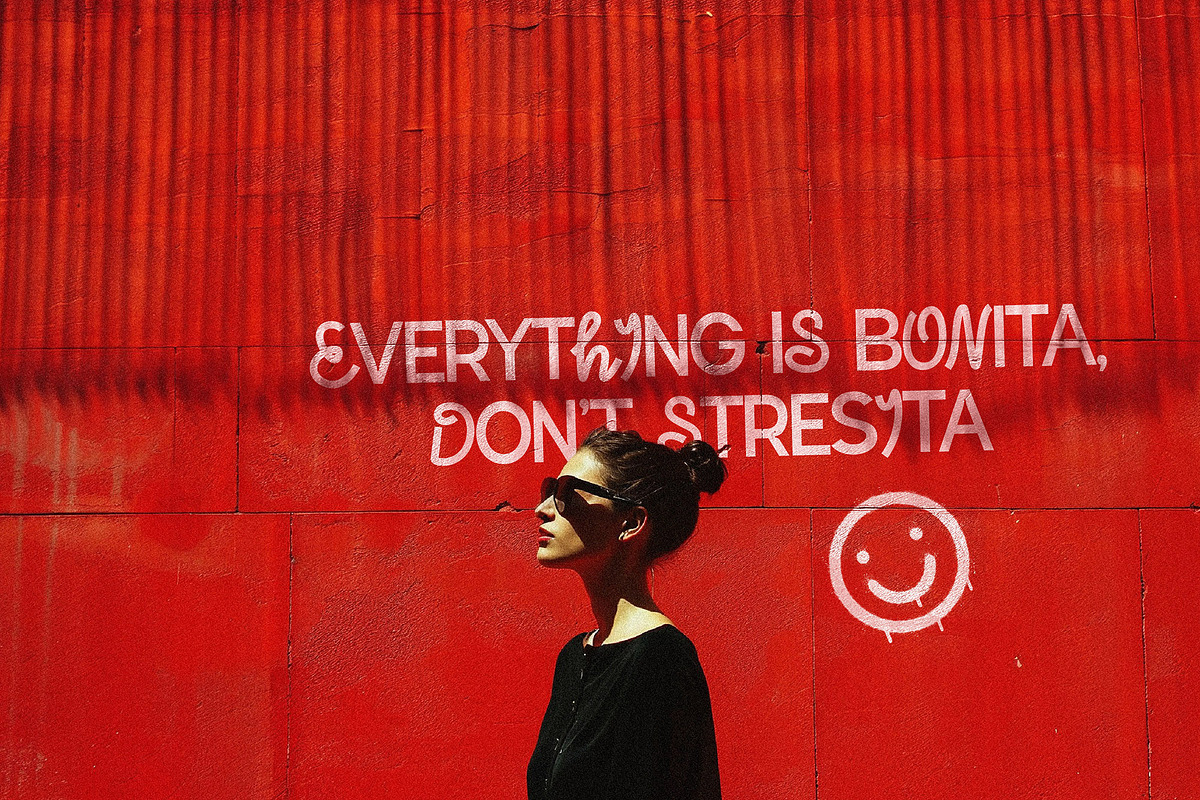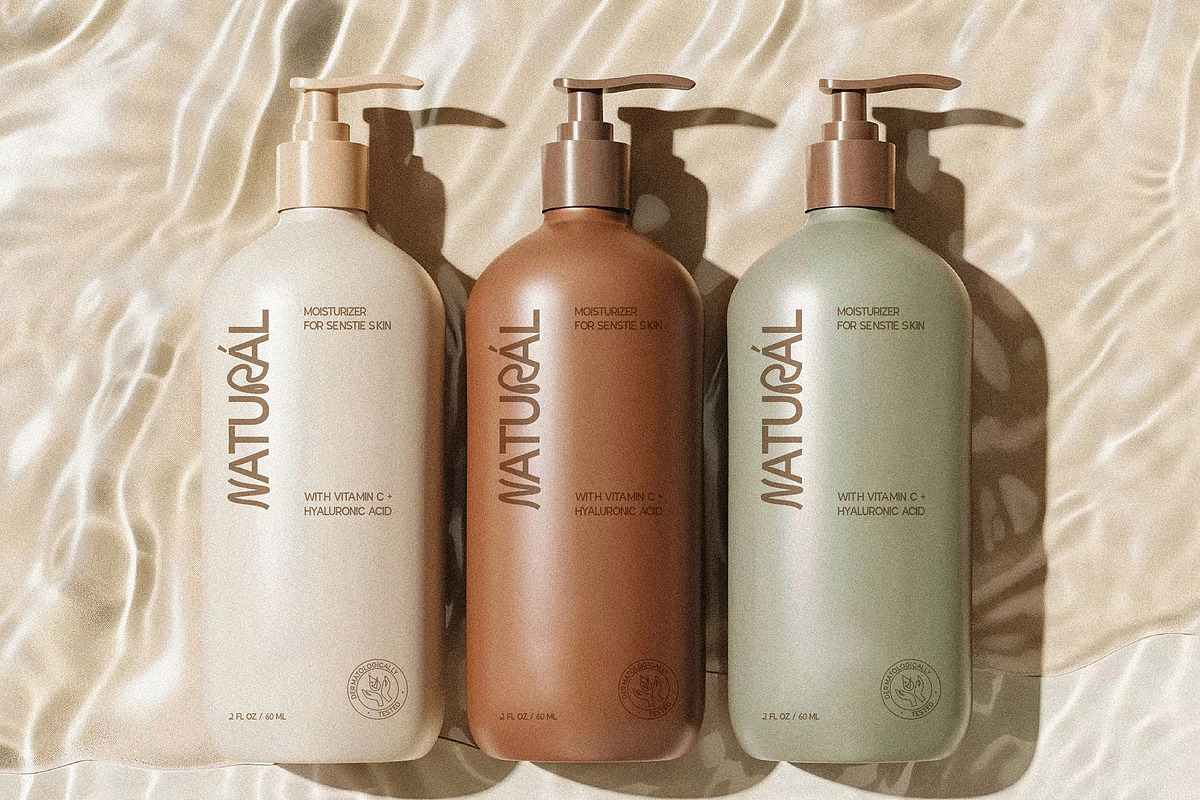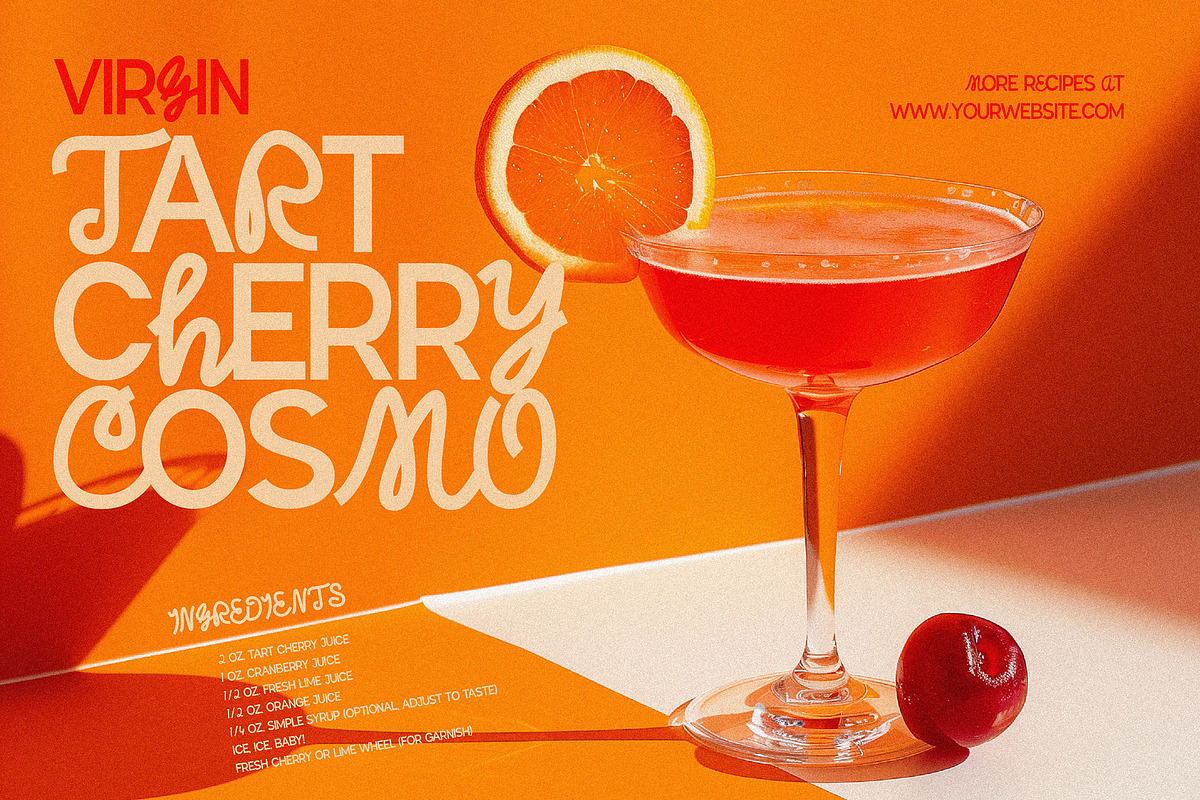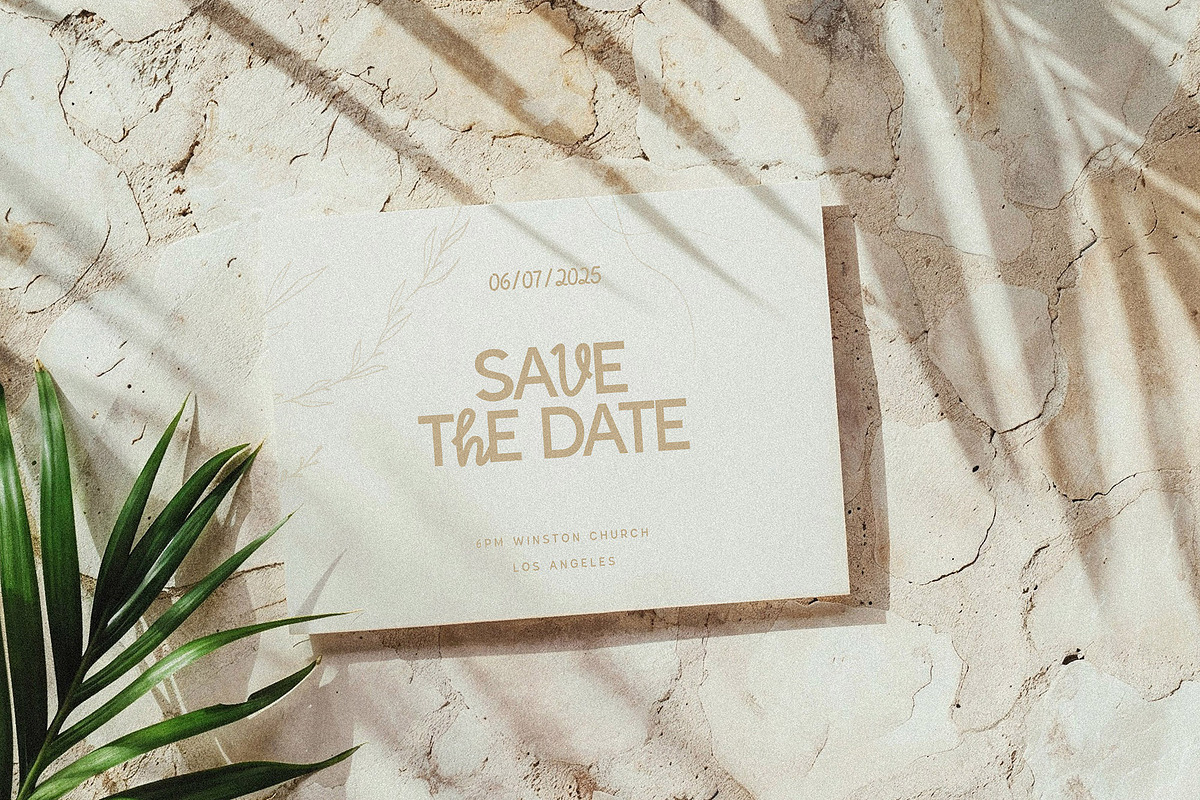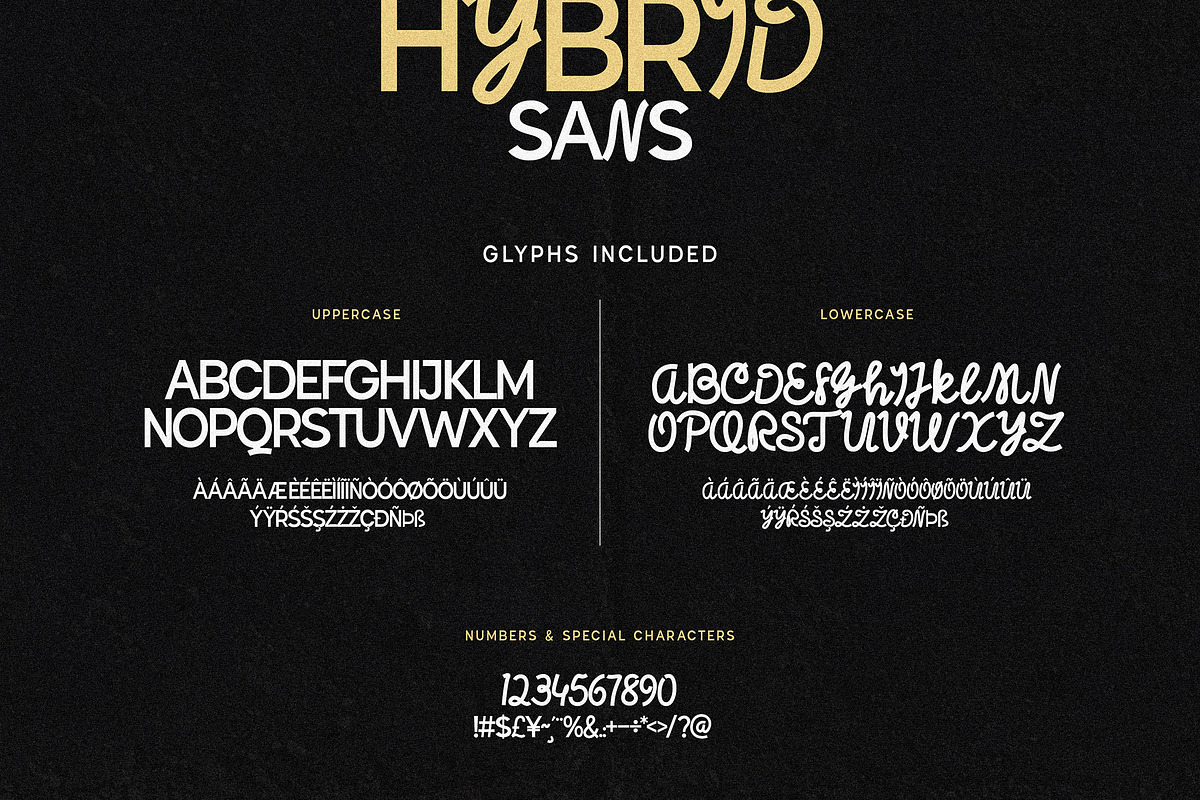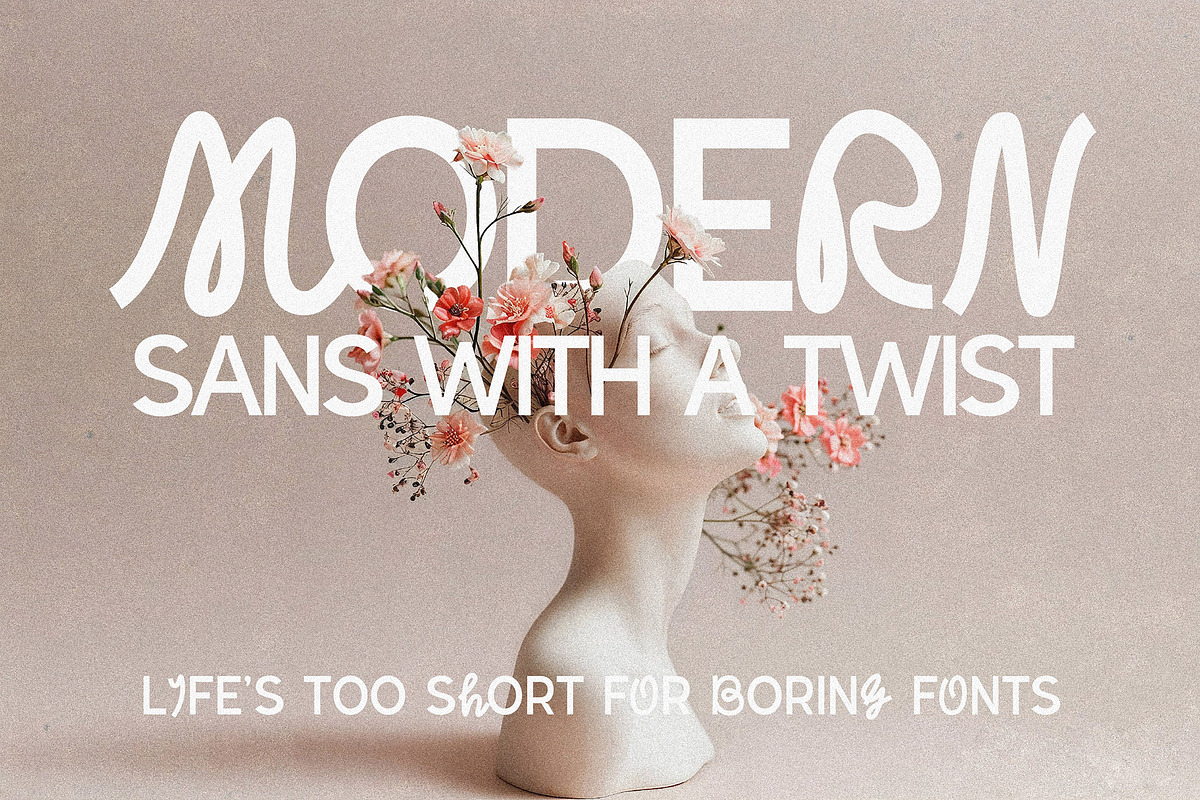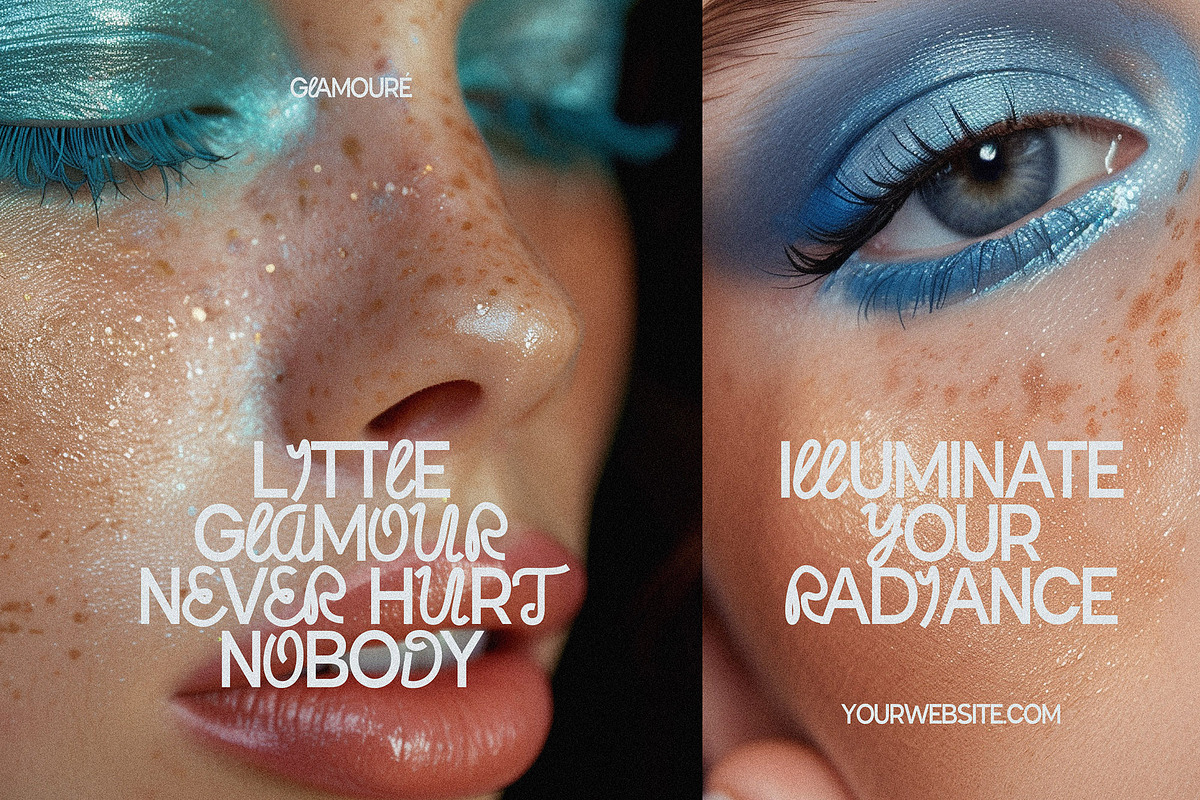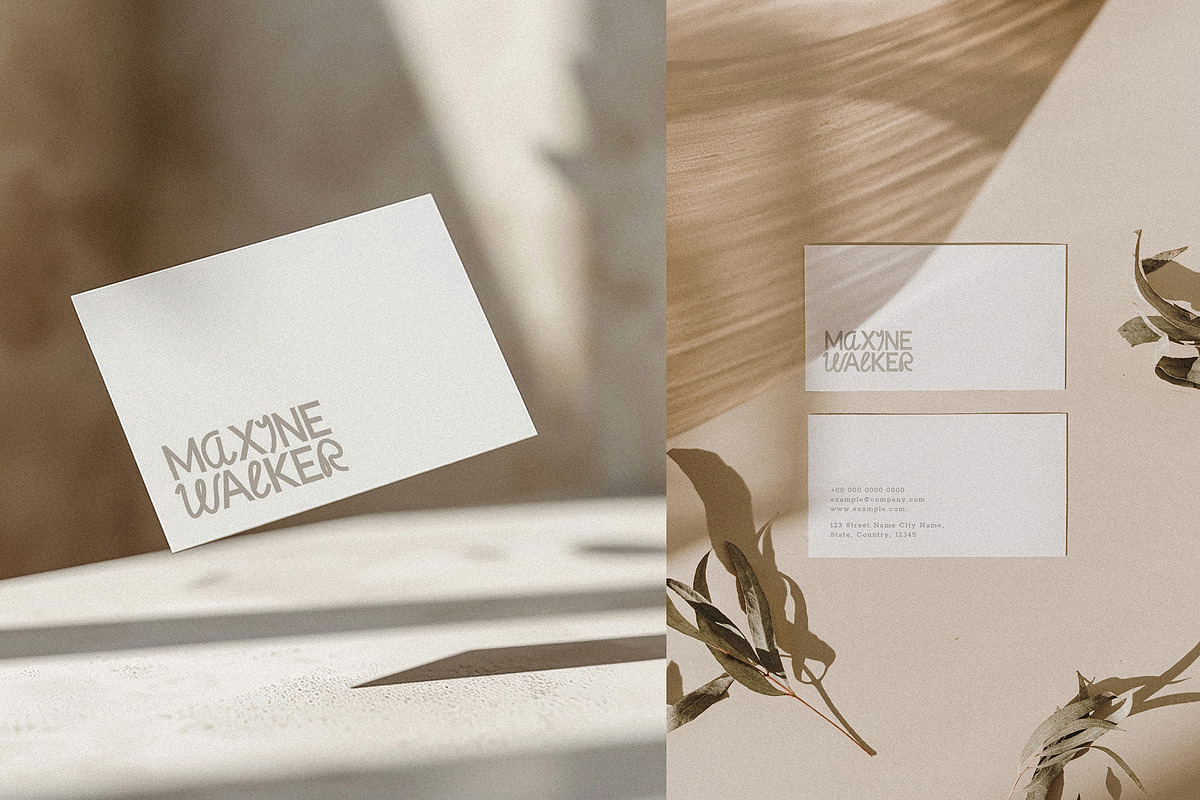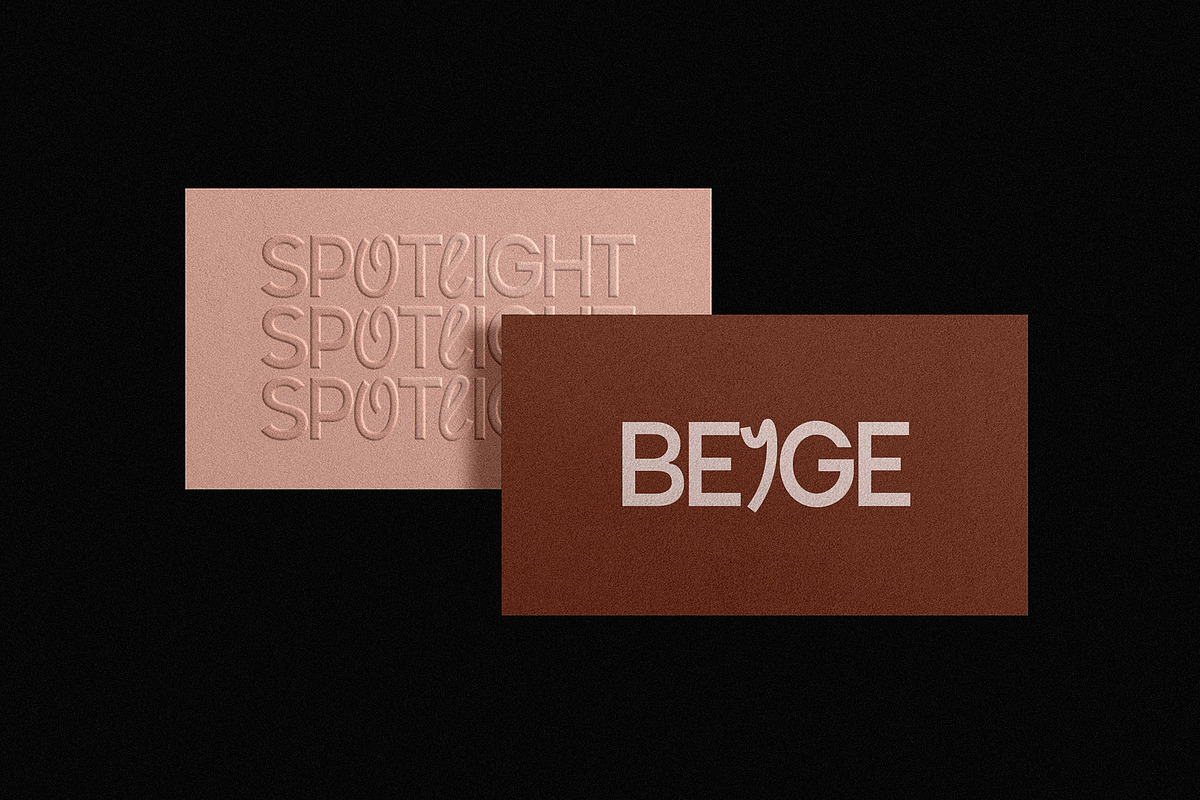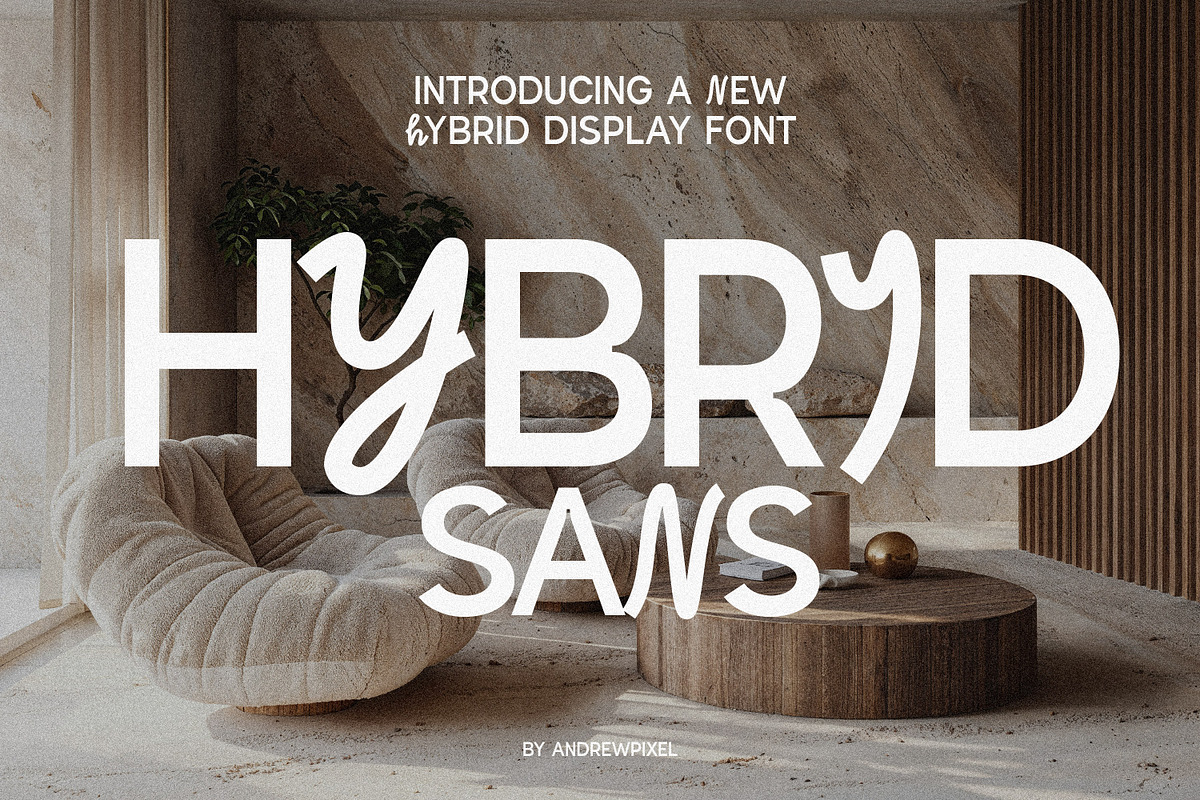
Hybrid Sans - Sans & Script Mix
Life's too short for boring fonts!
Hybrid Sans is a unique typeface that seamlessly blends the clean, geometric lines of modern sans serif fonts with the dynamic, flowing forms of bold script fonts. It's a perfect choice for designers who want to make a statement with their typography.
Note that one font file includes both the glyphs for the sans serif (uppercase) and script (lowercase) font!
Such an awesome typeface, I used it for a charity website & logo design. Having the two different styles in lowercase and uppercase make it easy to have consistency across all platforms. My intention was to refresh the charity's branding to something that was friendly and approachable for people in need and Hybrid Sans does that! Thank you to the designer :)